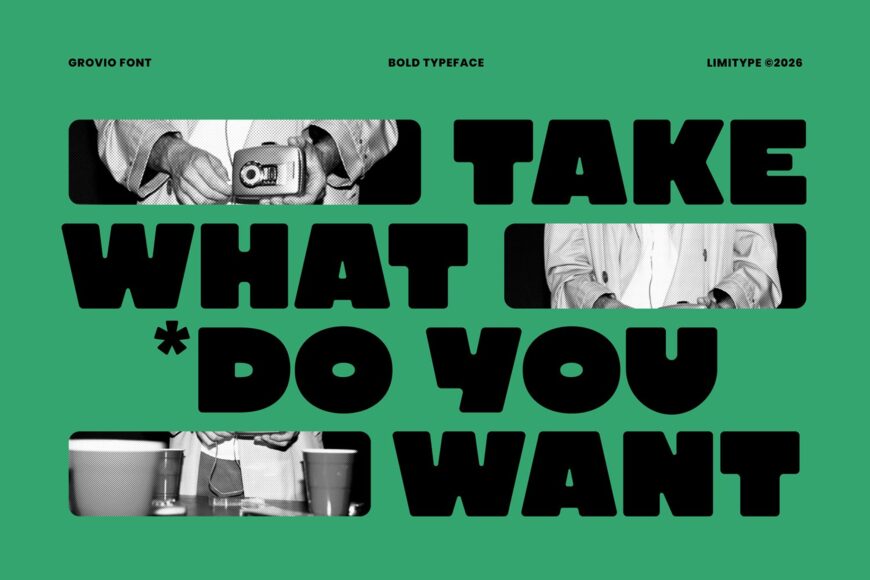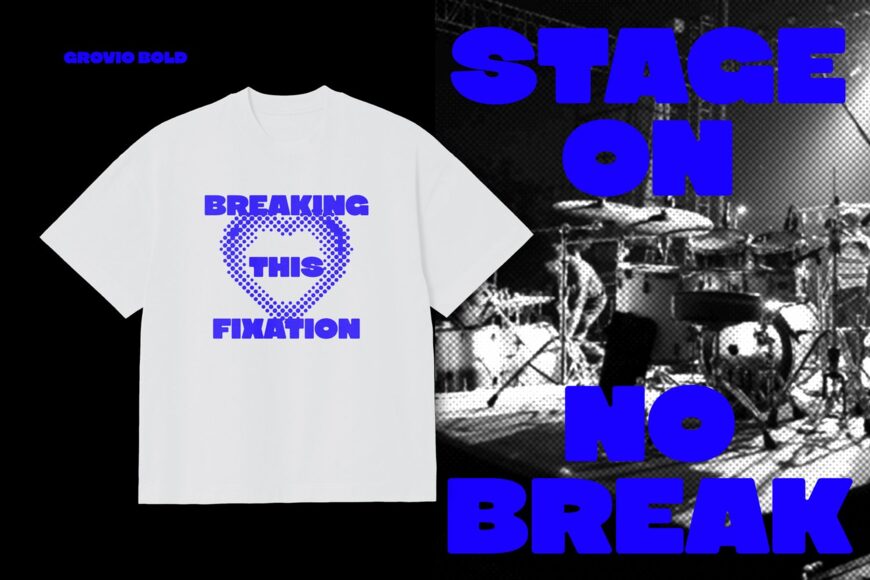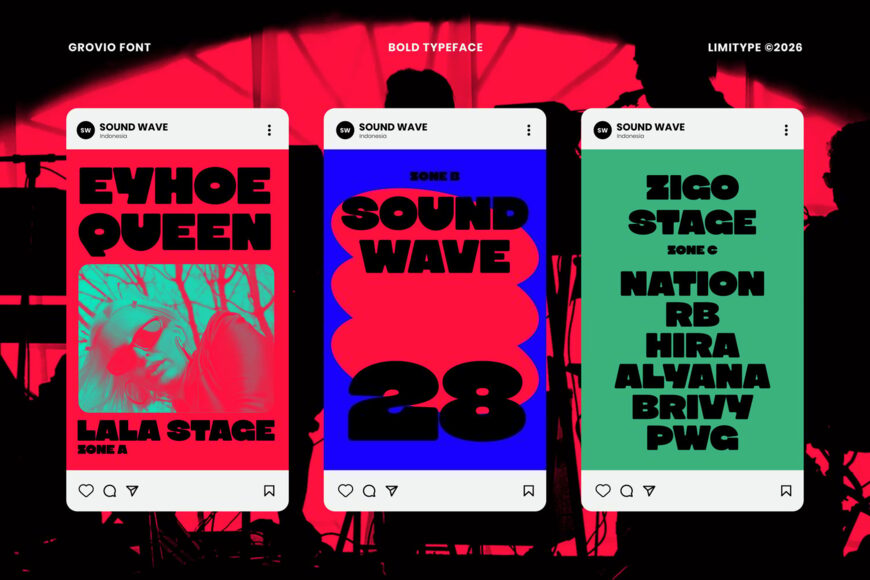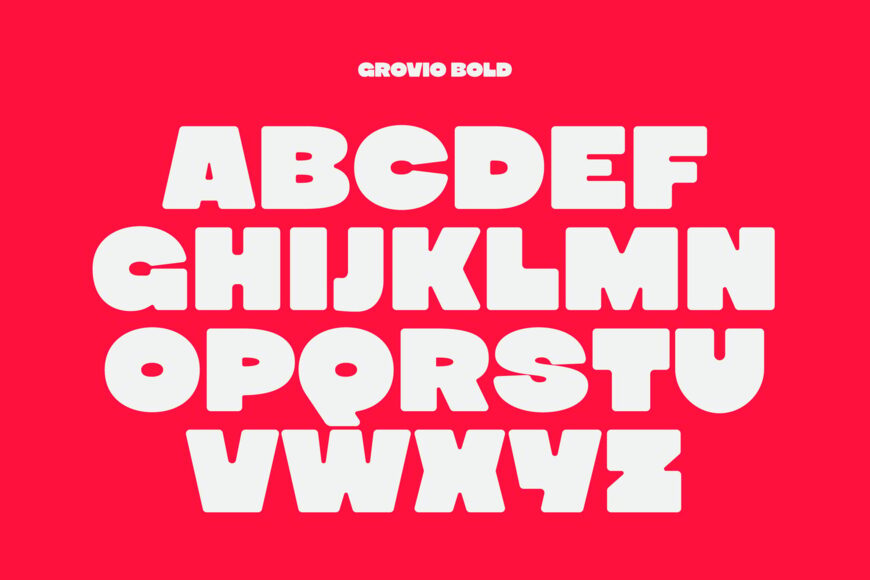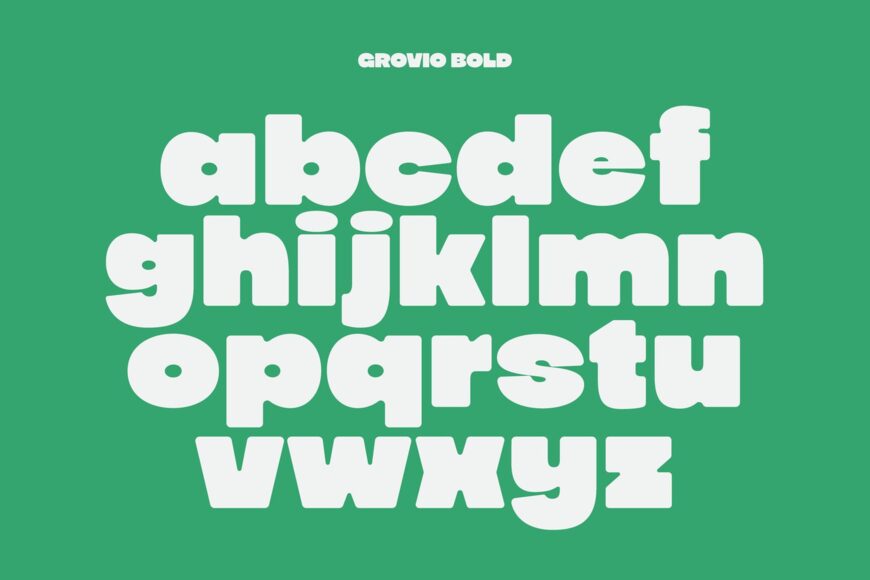
Grovio Font
Grovio is a bold, groovy display typeface featuring chunky rounded letters and playful cutout details. Its substantial forms, flowing curves, and signature horizontal cuts give it a lively retro character with standout visual appeal. It’s an excellent choice for expressive branding, logos, posters, packaging, headlines, and other attention-grabbing graphic designs.
Designed by: Limitype